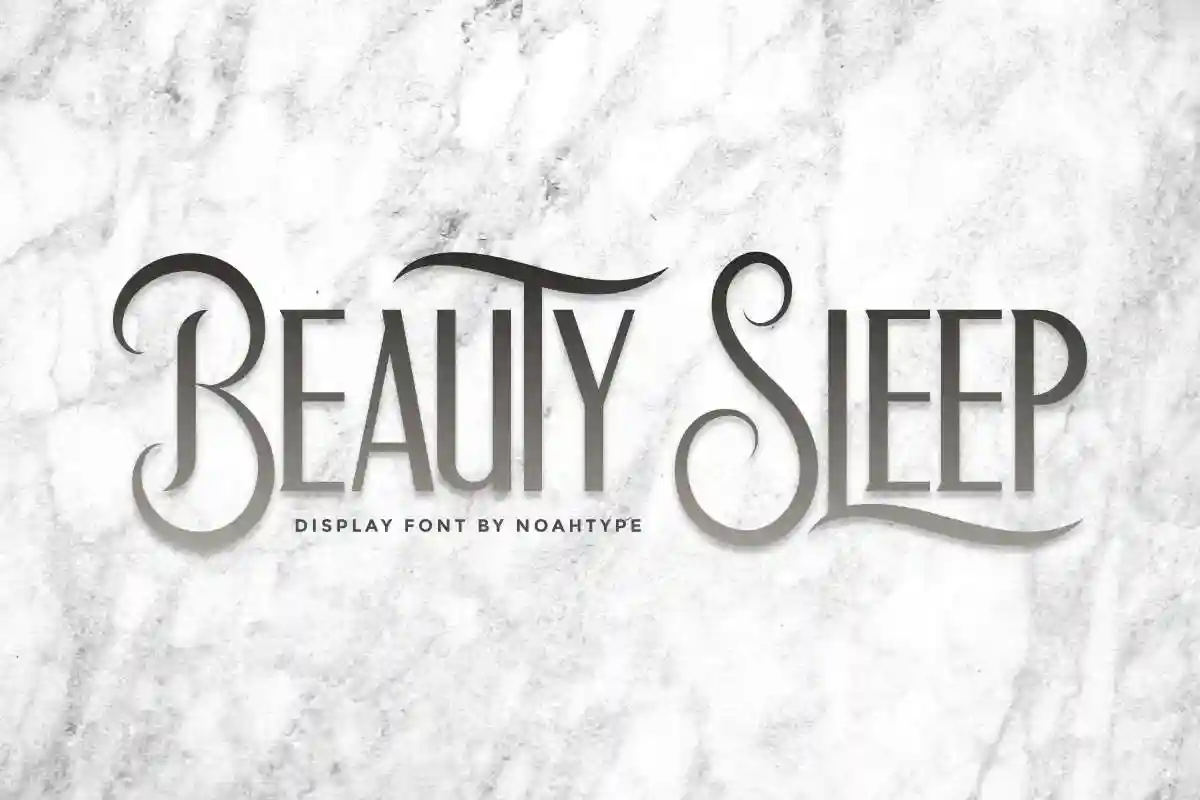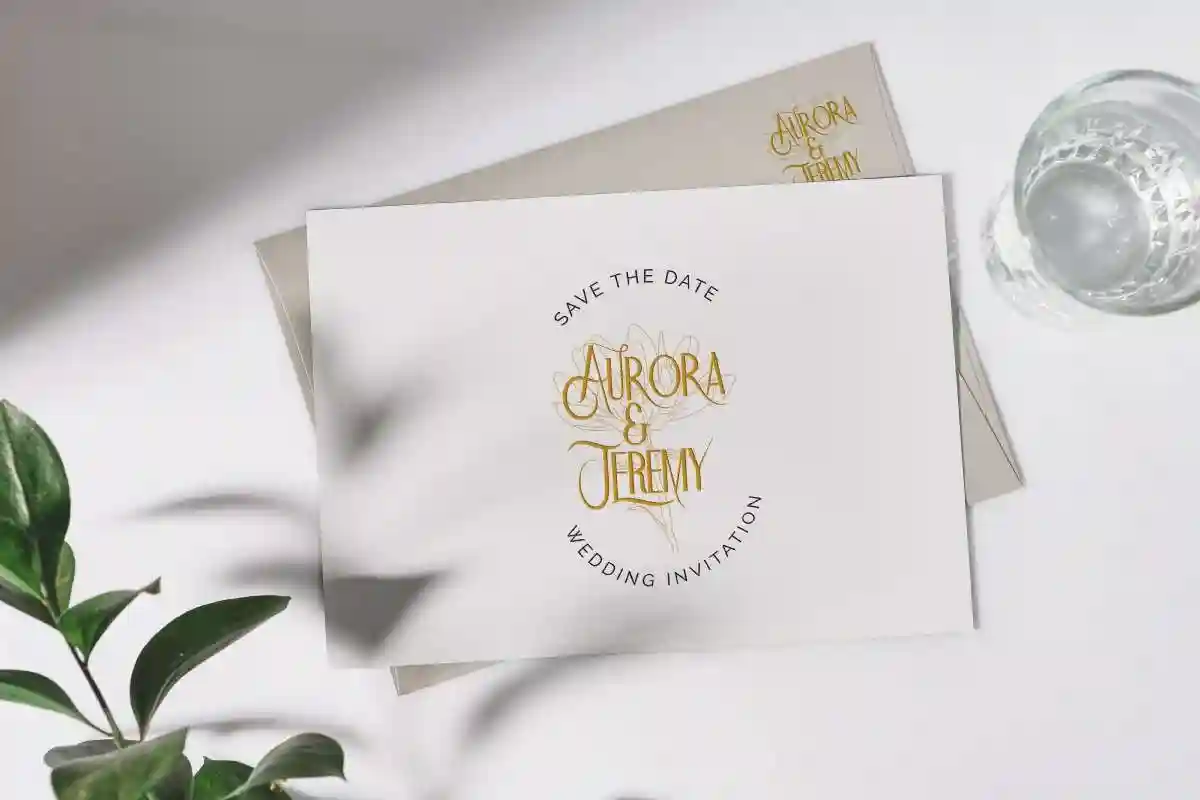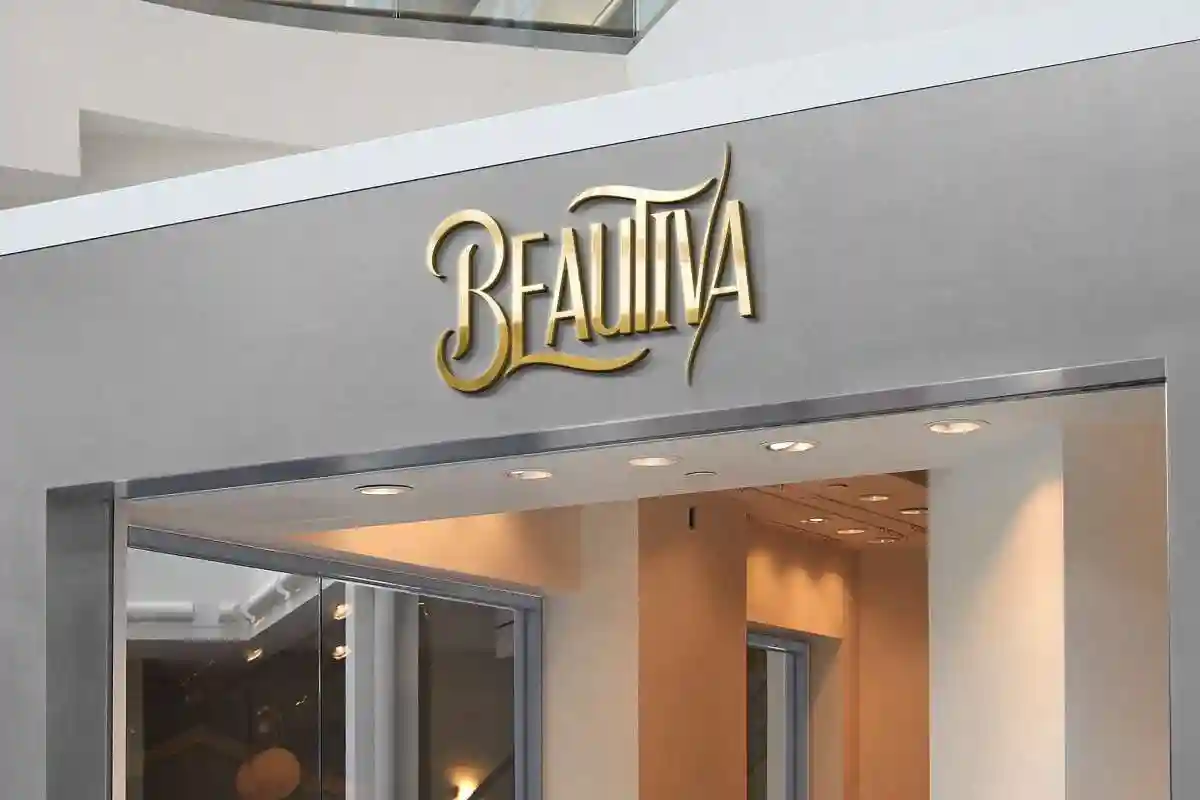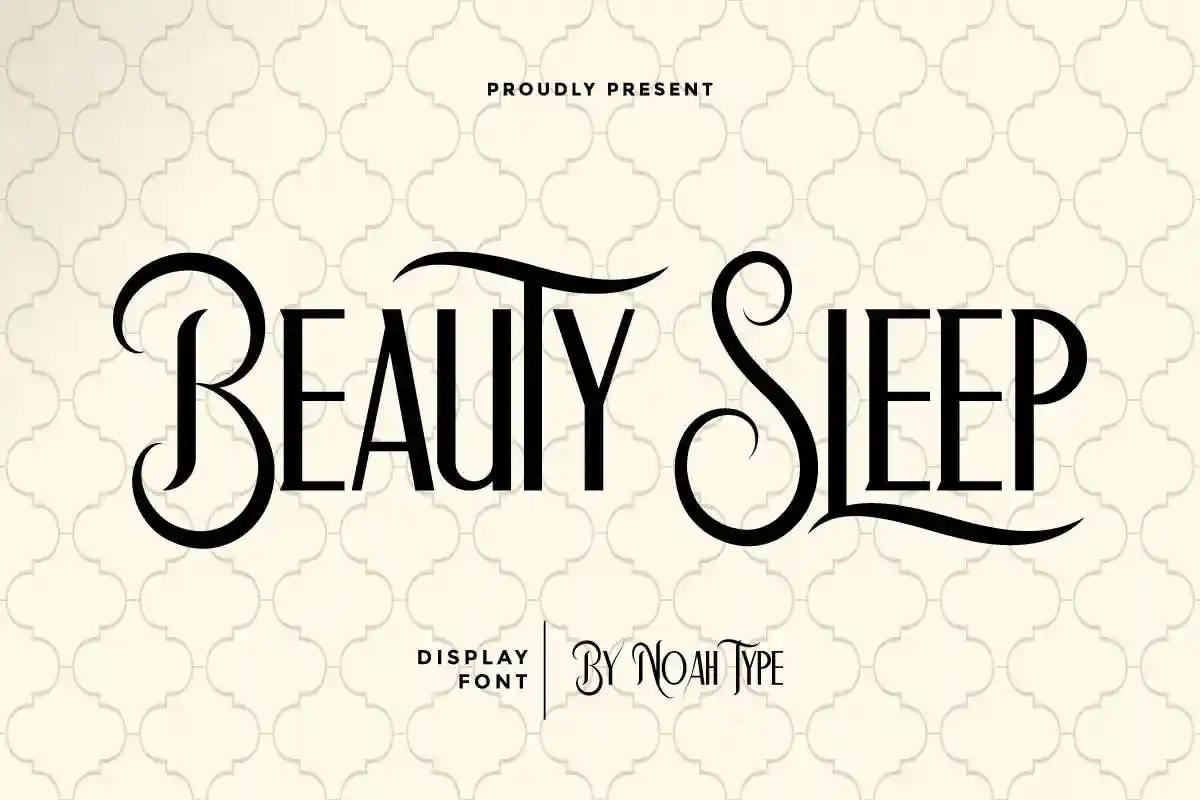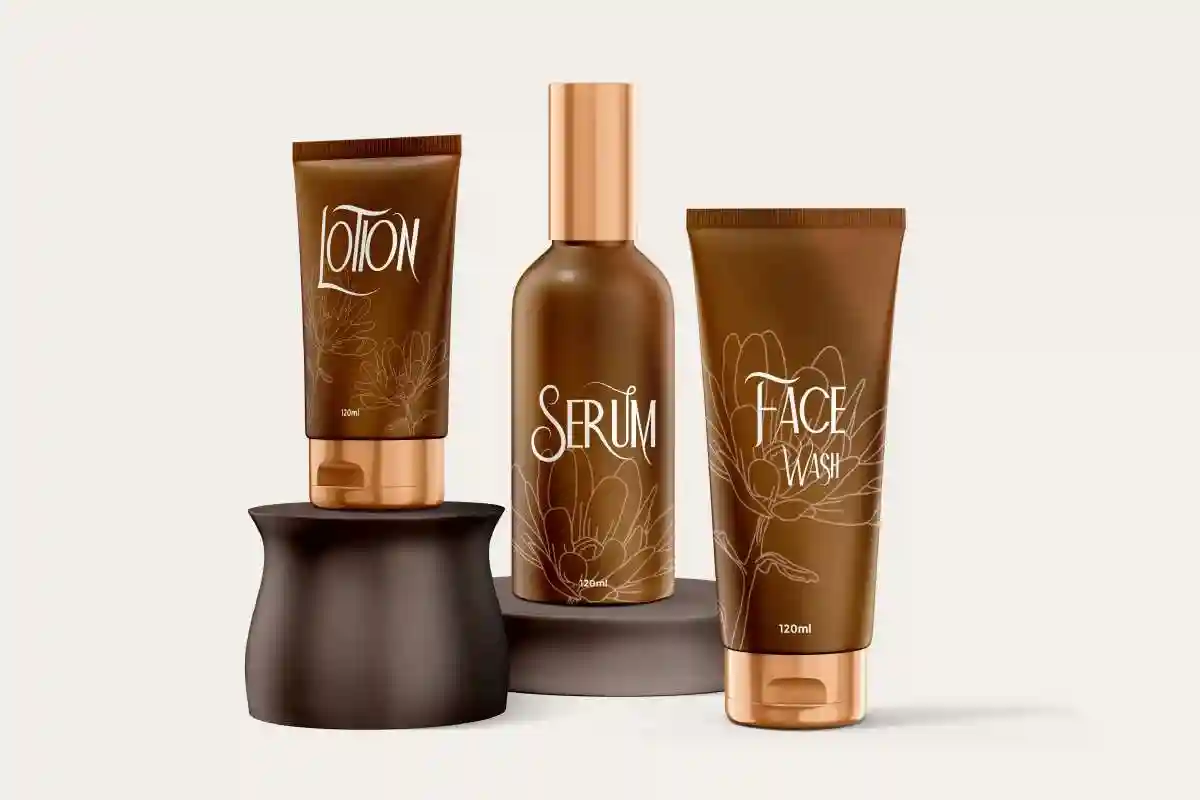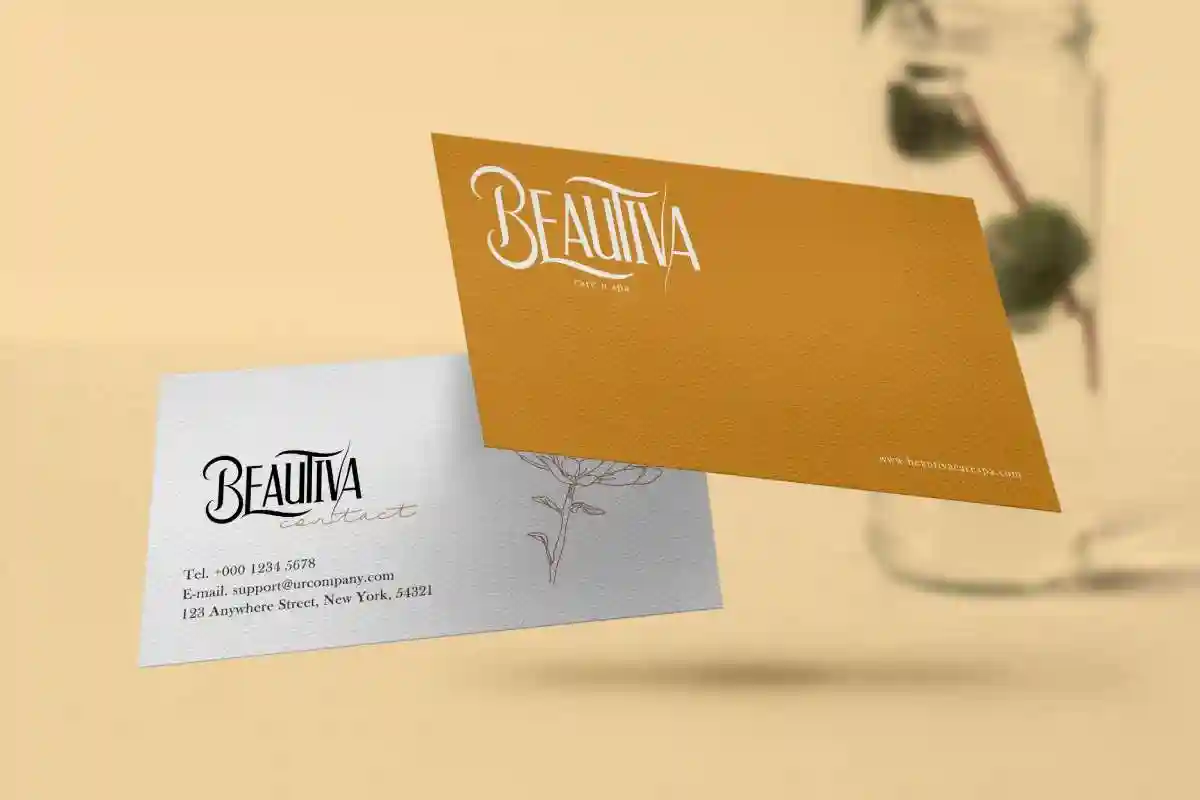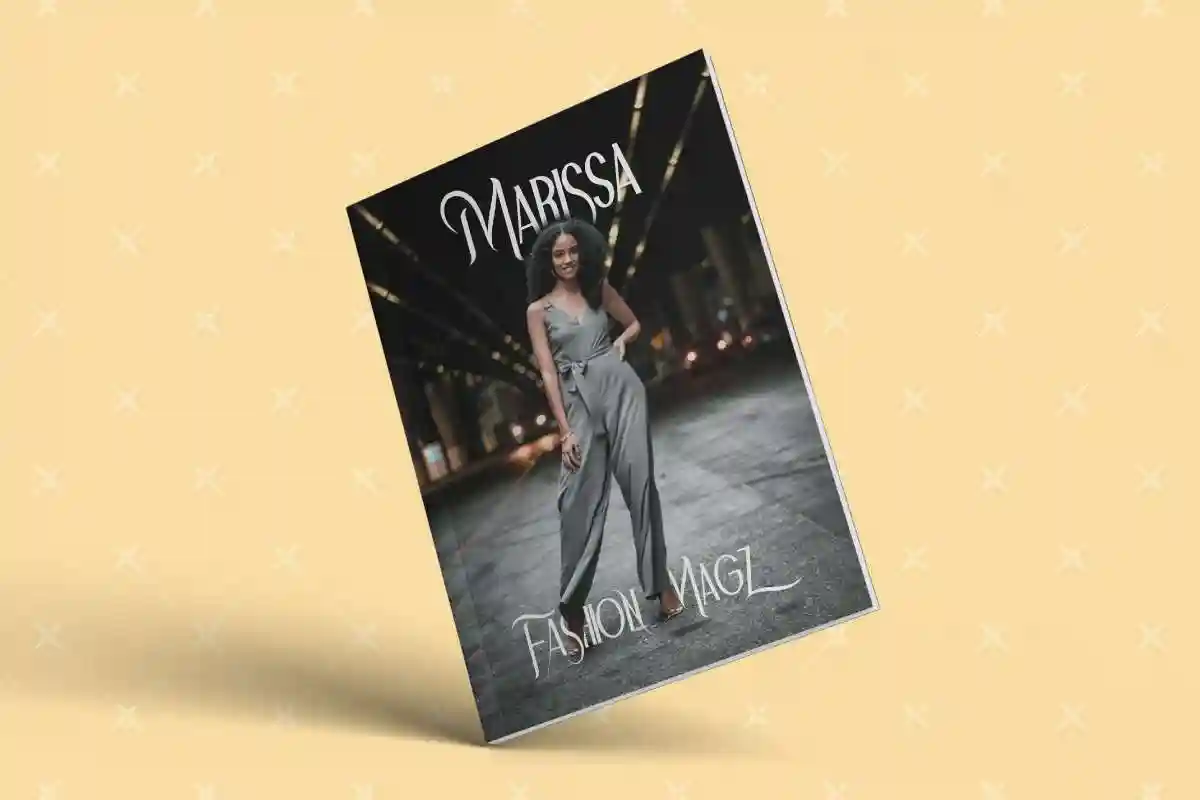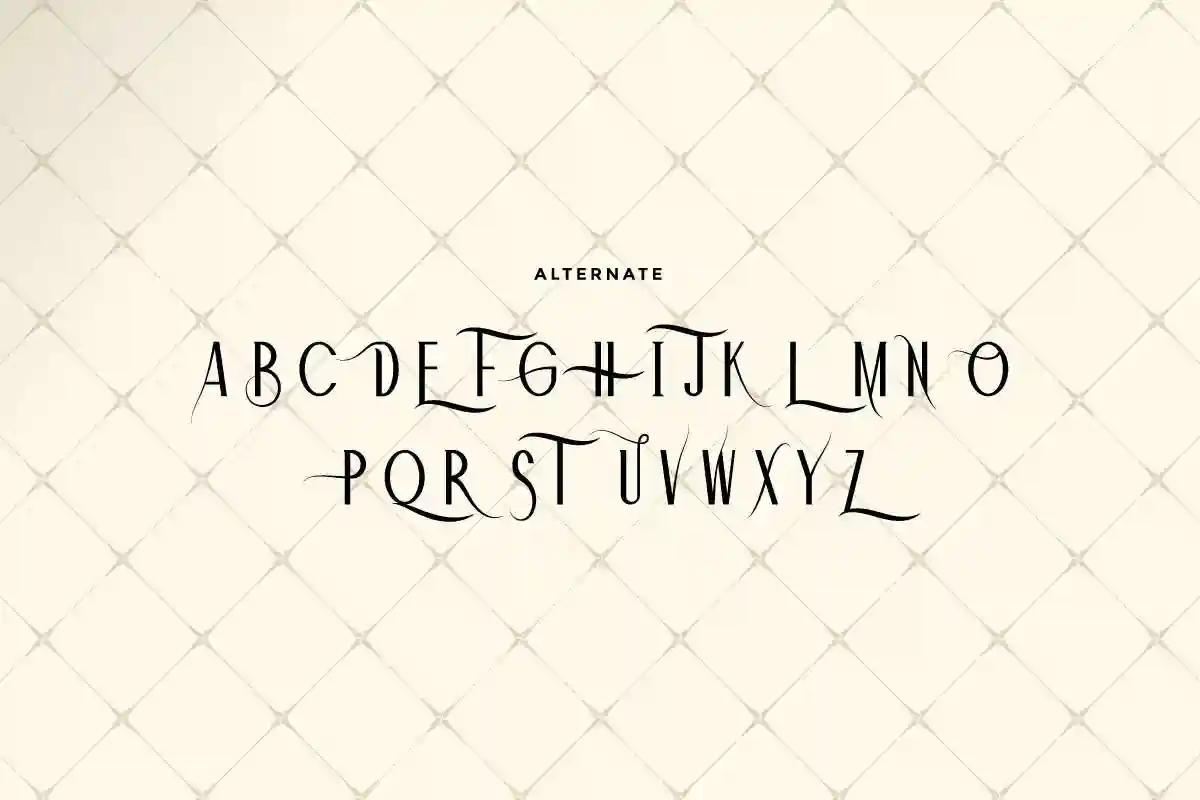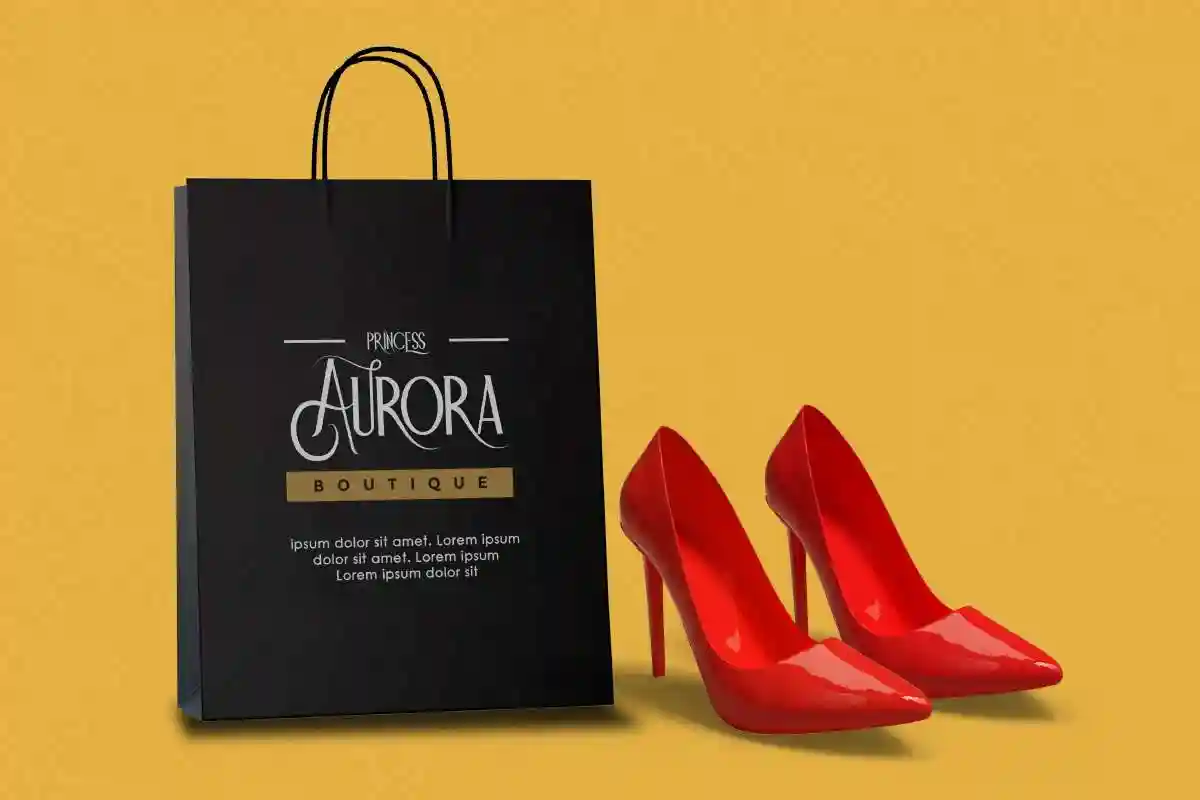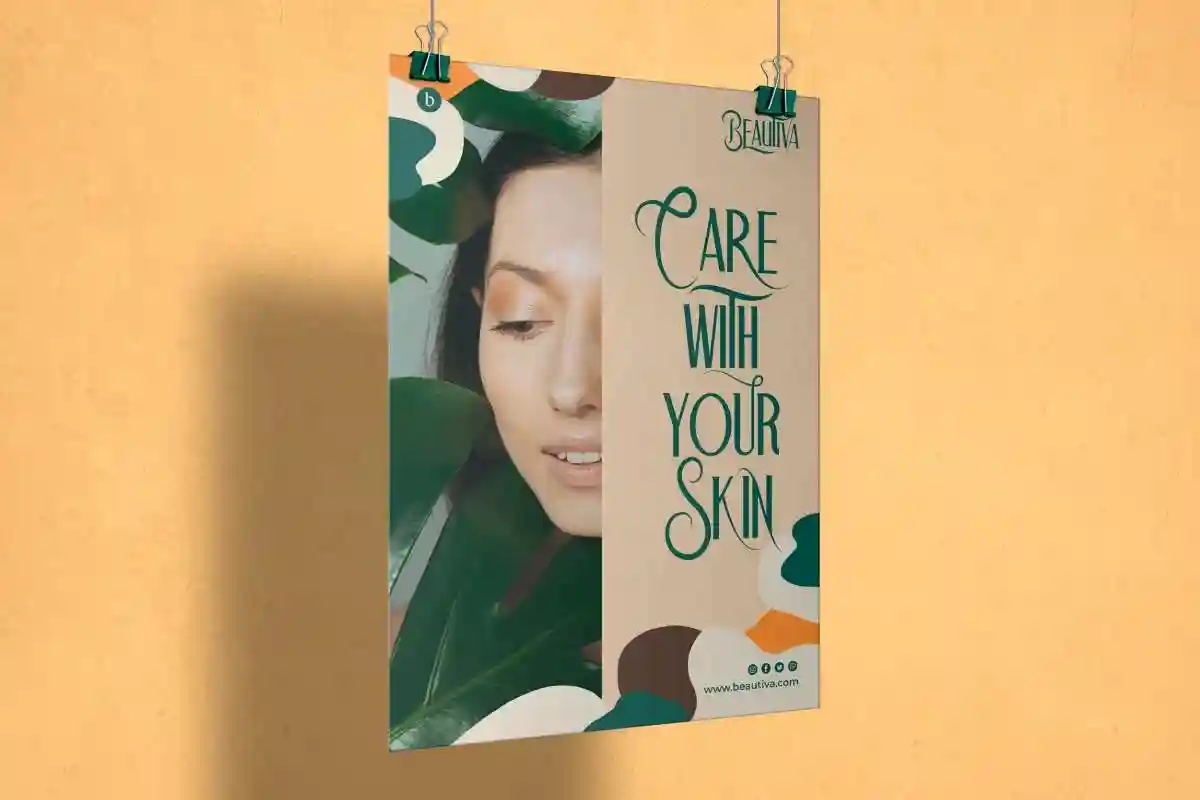
Beauty Sleep Font is a modern handwriting display font with stunning style. The font was inspired from classic lettering poster. It has a unique style that will bring the personal touch effect to the design. It will works for wedding, branding, artist, make up, and any other things. Beauty Sleep includes full set of Uppercase and Lowercase Basic Characters, Numerals and Punctuation. The font will also works for outdoor, fashion products, camping, adventure style. The font is perfect for many projects, headlines, logos, poster, tittle, products, etc
Beauty Sleep Font have one unique style with alternatives characters stylish options. It will be ready to use both on Windows machine or Mac. It work well on Adobe software such as Illustrator, Photoshop and several other software.